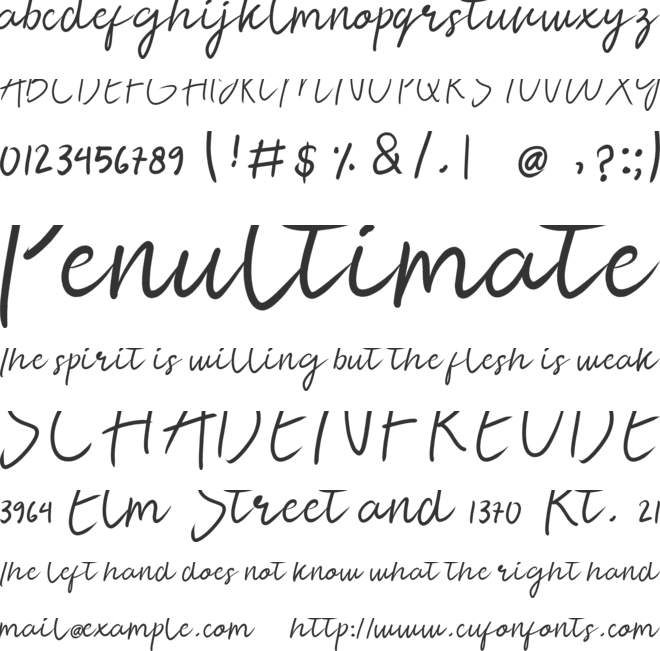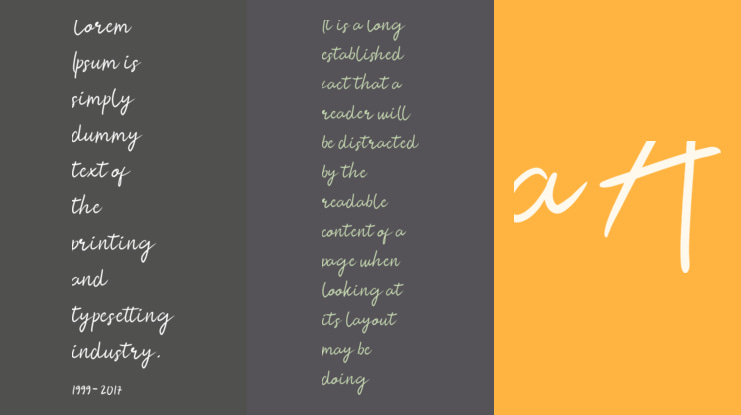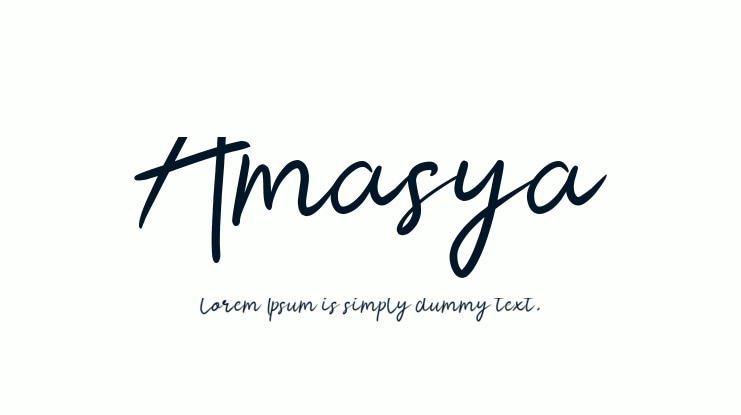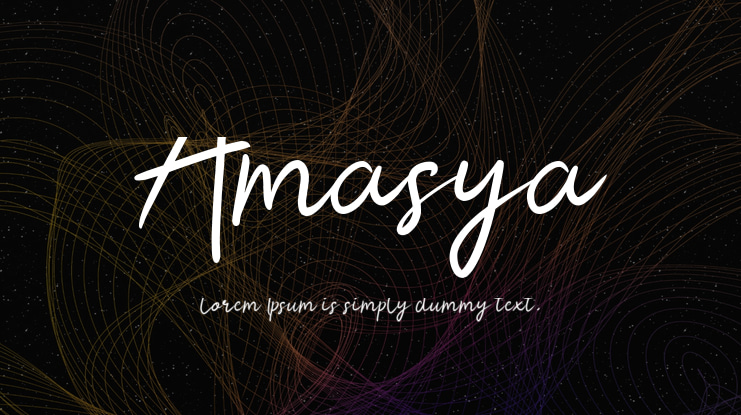
Amasya Font
Amasya font is a very beautiful handwritten font. Professionally designed to be the best font, grab this font right away to take your creative ideas to the highest level. This font is PUA encoded which means you can access all glyphs, stylistic alternates, ligatures and swashes. easily!